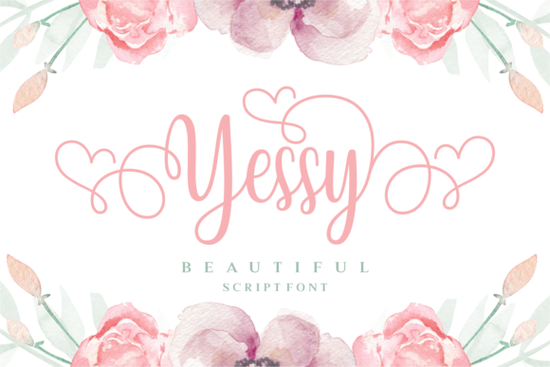
Finding the right handwriting style for a feminine or romantic project can take hours of scrolling. The Yessy Font solves this by offering a highly detailed script typeface packed with alternate characters and delicate swashes. Whether you are designing wedding stationery, crafting custom mugs for a small business, or setting up a new print-on-demand store, this typeface brings a soft, elegant touch to your layout without looking messy or hard to read.
What makes this script typeface stand out for crafters?
Most handwriting styles lack the extra flourishes needed for high-end branding. When you are exploring the Yessy lettering options, you will immediately notice the extensive glyph library. This means you can swap out standard letters for sweeping, feminine swashes that connect beautifully. For crafters using Cricut or Silhouette machines, these smooth curves cut cleanly on vinyl, making it an excellent choice for custom decals, tote bags, and acrylic signs.
How do you pair it with other fonts for event stationery?
Script styles need a solid, readable partner to balance the design. If you are working on a romantic wedding invitation suite, pair the elaborate swashes with a clean, minimalist sans-serif or a classic serif for the body text. This keeps the main information easy to read while letting the names of the couple shine.
For a more cohesive handwritten look across your entire project, you might want to mix it with another delicate style. Many designers find that blending it with the Ameliya lettering style creates a lovely contrast between a bolder script and a lighter, more relaxed handwriting style for secondary details like dates and locations.
Which design software works best for accessing the alternate glyphs?
To get the most out of the feminine swashes, you need software that supports OpenType features. Adobe Illustrator and Photoshop have dedicated glyphs panels that let you click and insert alternate characters directly into your text. If you are using Cricut Design Space or Silhouette Studio, you will need to use a free tool like WordPad or the Mac Character Viewer to copy and paste the specific swashes you want before importing them into your cutting software.
For small business owners who rely on Canva for quick social media graphics, keep in mind that the free version does not always support advanced alternates. You can view the full character map for the Yessy Font online to see exactly which symbols are available before you start designing.
Is it readable enough for small business packaging and labels?
Readability is the biggest hurdle when using elaborate scripts on product labels. While the sweeping tails look gorgeous on large headers, they can become illegible when scaled down for small cosmetic jars or candle stickers. To fix this, use the standard character set for smaller text and reserve the heavy swashes for your main brand name.
If your brand leans toward a more casual, everyday aesthetic, you might prefer trying out Enjoy the Little Things for your subheadings. It offers a friendly, approachable vibe that complements the high-end elegance of your main header. Alternatively, for a very modern, minimalist product line, incorporating Justin Hailey Monoline adds a sleek, continuous-line feel that pairs wonderfully with delicate floral illustrations.
What are the best print-on-demand products for this lettering style?
Because of its romantic and delicate vibe, this typeface performs exceptionally well on apparel and home decor items. Here are a few product ideas that consistently sell well with elegant script styles:
- Bridal party robes and tumblers: The sweeping tails look beautiful when printed or engraved on personalized gifts for bridesmaids.
- Nursery wall art: Use the softer, standard characters to print baby names and birth statistics on minimalist canvas prints.
- Greeting cards: The elaborate swashes act as built-in decorations, meaning you do not need to add extra floral graphics to make the card look finished.
- Tote bags and apparel: Short, inspiring quotes written in this style create a highly aesthetic, boutique feel for clothing brands.